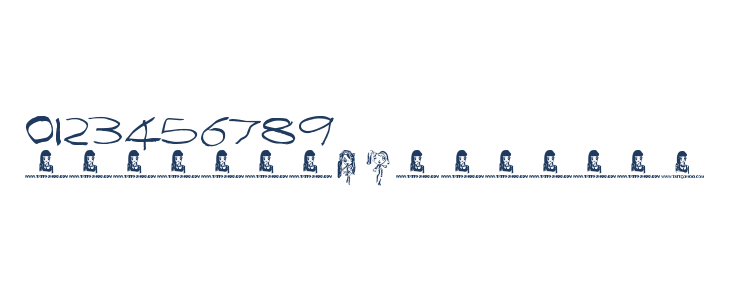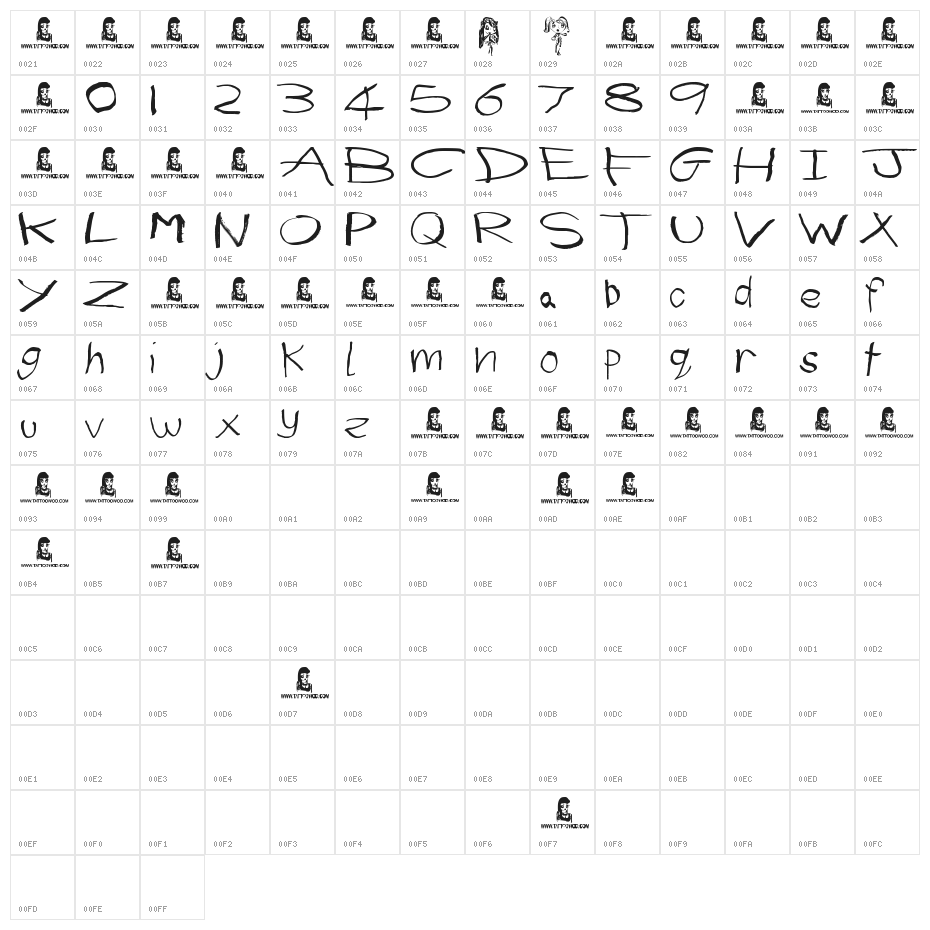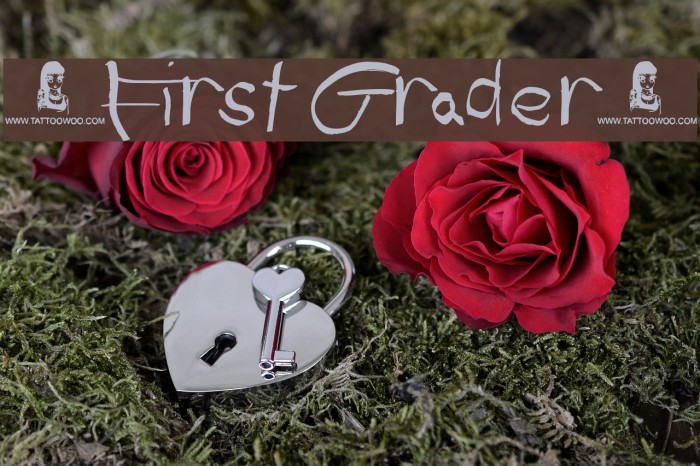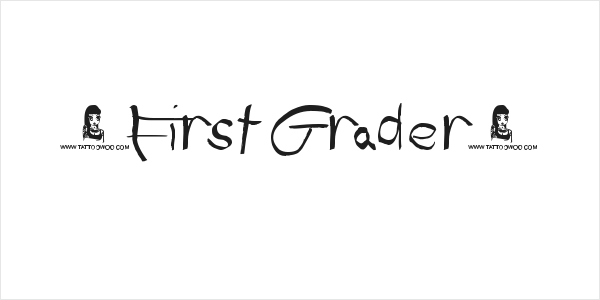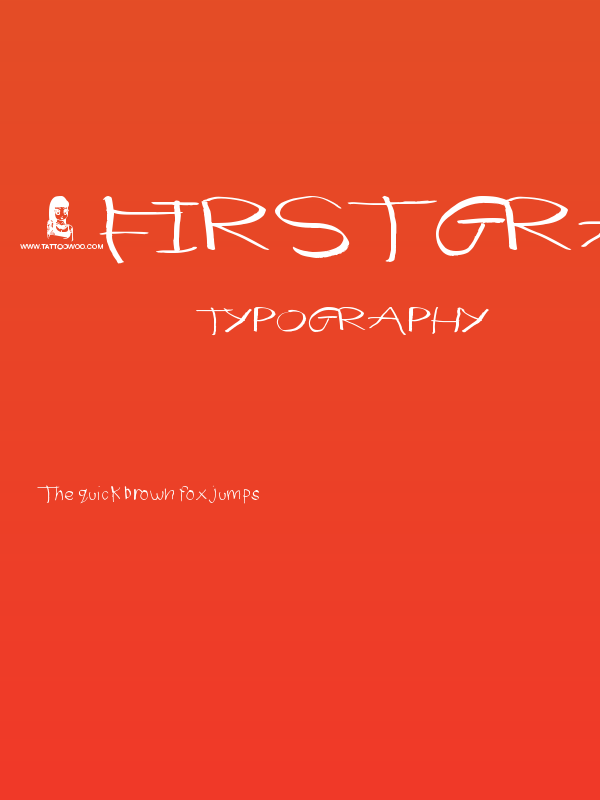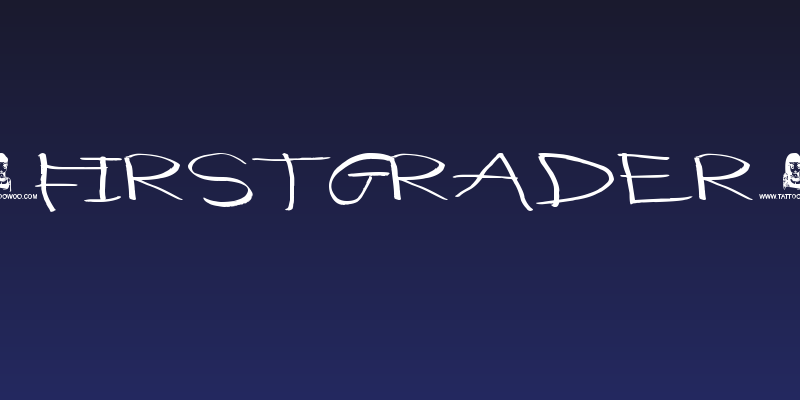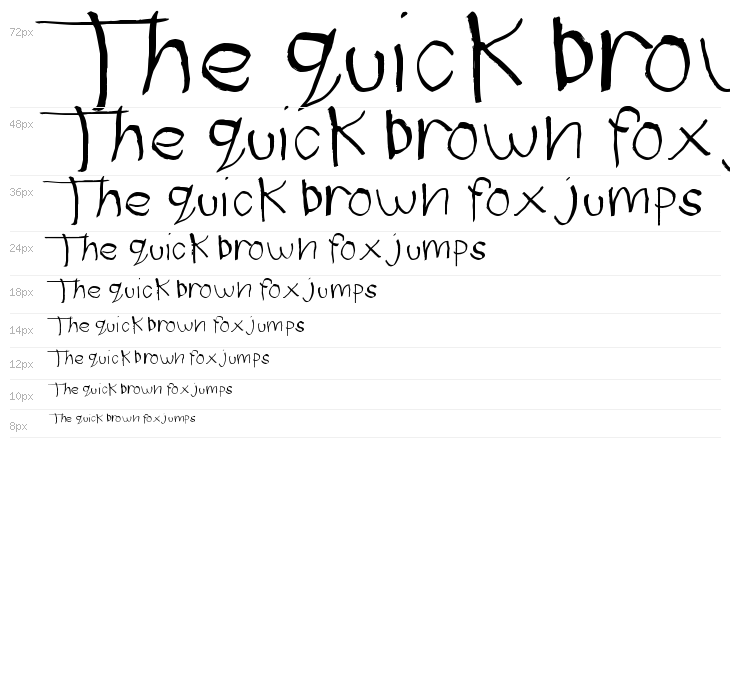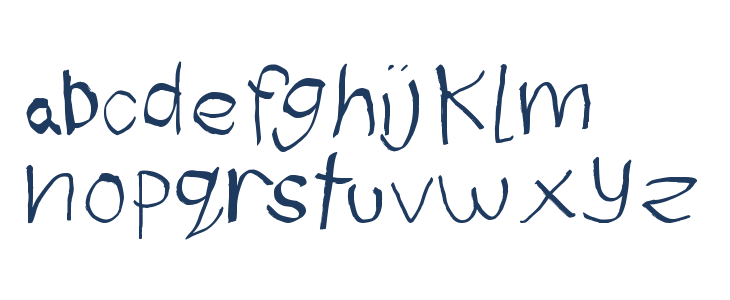
[First Grader] Font
| Stile generale | Playful, Whimsical |
| Caso d'uso | Headlines, Creative projects, Informal designs |
| Progetti proposti | Ideal for children's books, playful branding, educational materials, and creative invitations. |